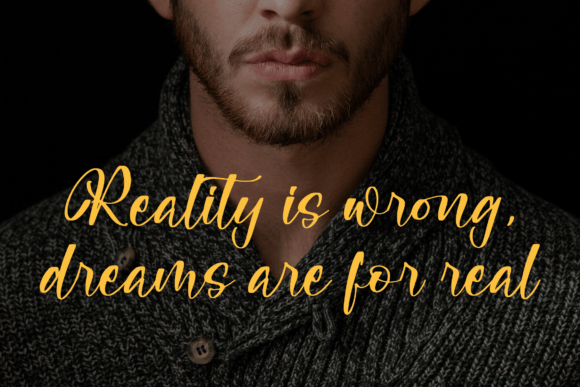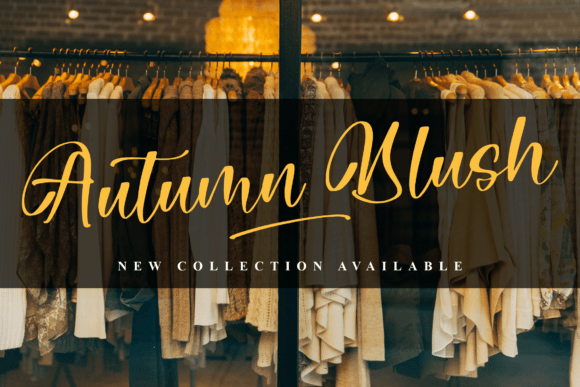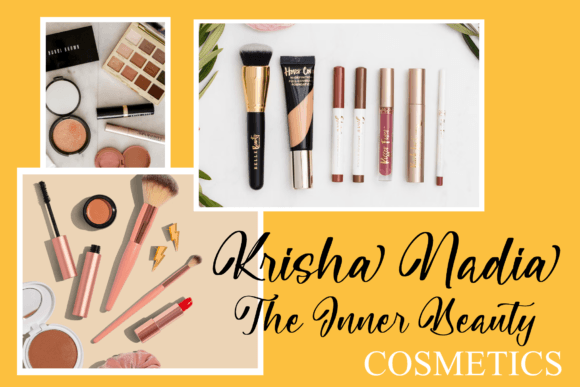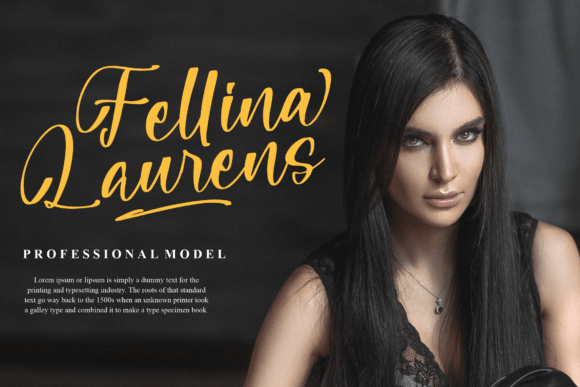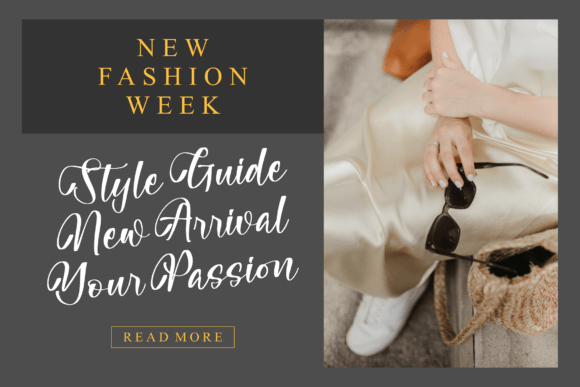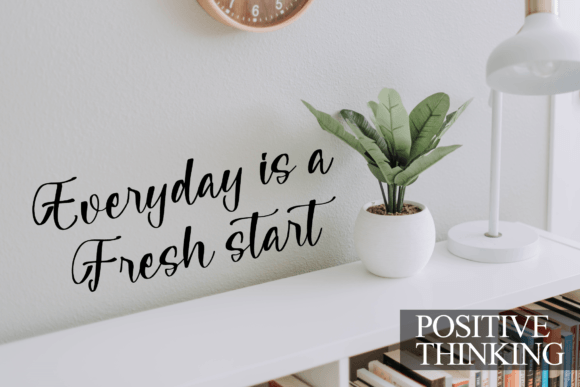
Introduction to Mongallisa Andalika Font
Do you remember the moment when you finally found the perfect font to elevate your creative project? It’s that ‘aha’ moment when everything comes together, and your design shines with a new level of sophistication. For designers, finding the right font can be a game-changer, and that’s exactly what we’re excited to share with you today – the enchanting Mongallisa Andalika Font.
This high-quality, handwritten font is a treasure trove of creative possibilities, offering a wide range of applications, from elegant greeting cards to eye-catching headlines. With its romantic feel, Mongallisa Andalika Font is sure to add a touch of magic to your next project, making it a valuable asset for any designer looking to take their work to the next level.
Key Features of Mongallisa Andalika Font
- High-quality design for creative projects, ideal for use in logos, branding, and graphics.
- Features a unique, modern aesthetic, setting it apart from other free fonts available online.
Honest Review: Mongallisa Andalika Font
I recently stumbled upon the Mongallisa Andalika Font and was excited to give it a try. As a designer, I’m always on the lookout for high-quality fonts that can elevate my creative projects.
The Mongallisa Andalika Font is available for free download, which is a major plus. The font is elegant, with a sleek and modern design that works well for a variety of projects. I particularly like the way it looks with a transparent background, allowing the text to stand out without any distractions.
- Elegant and modern design that looks great with a transparent background
- May not be suitable for projects that require a more traditional or formal font style
- Not as versatile as some other fonts in terms of font sizes and styles
Overall, I’m impressed with the Mongallisa Andalika Font. It’s a great addition to any designer’s toolkit, and I’d definitely recommend it for creative projects that require a modern and elegant look.
Mongallisa Andalika Font
The Mongallisa Andalika Font is a high-quality, free download that can elevate your creative project to the next level. With its unique design and transparent background, this font is a valuable design resource for any project.
Experiment with different font sizes and styles to create visual interest. Use the font in combination with other design elements to create a cohesive look. Consider using the font in a variety of creative projects, such as social media graphics, brochures, and business cards.
The Mongallisa Andalika Font is perfect for a variety of creative projects, including social media graphics, brochures, business cards, and more. Its unique design and transparent background make it a valuable design resource for any project.